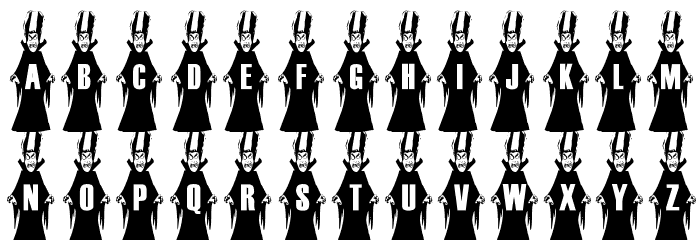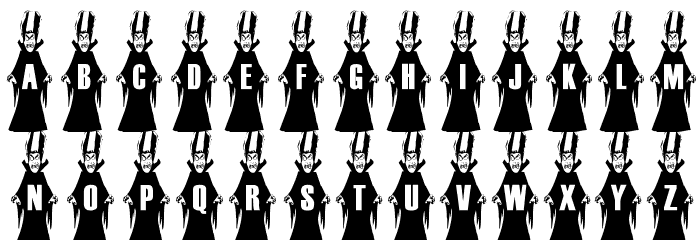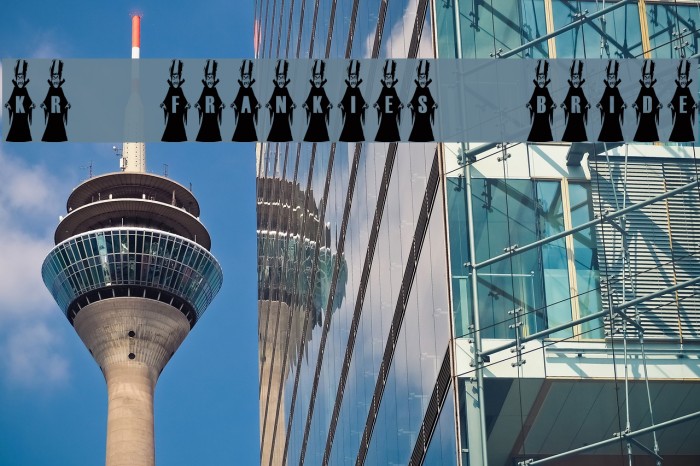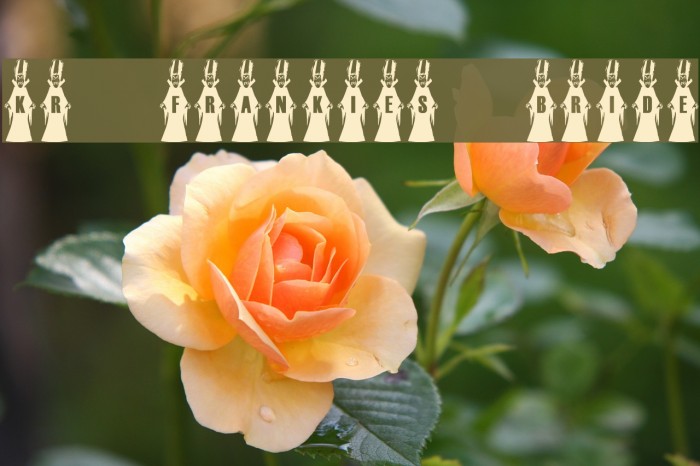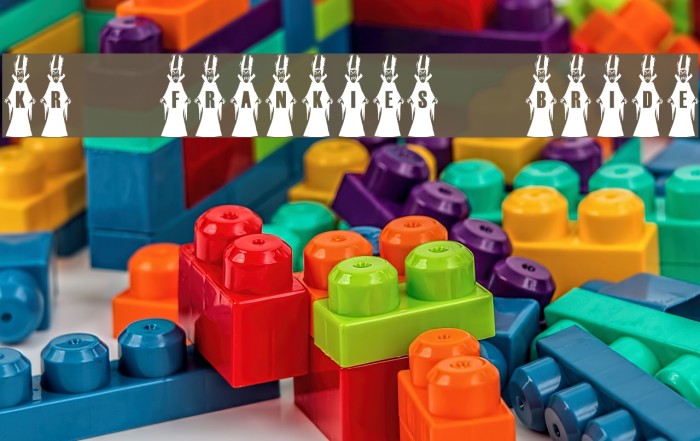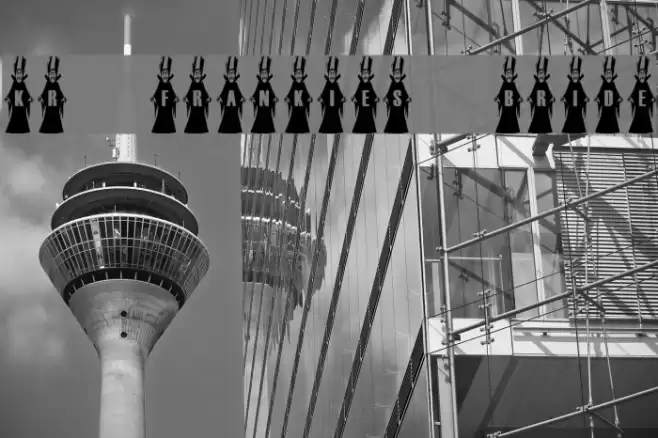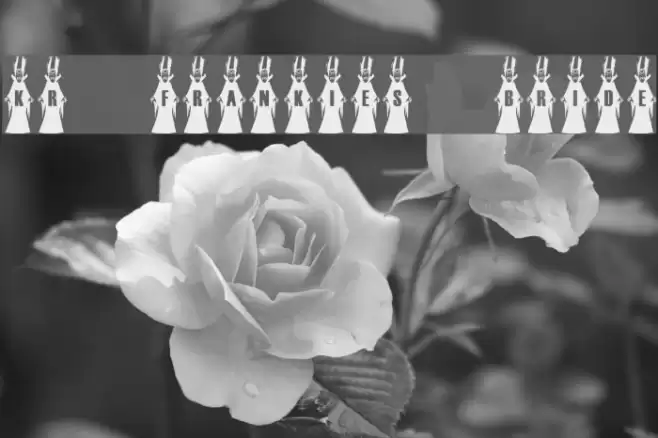
KR Frankie's Bride Font
This font features a unique and playful design with each character embedded within a stylized figure resembling a classic horror character. The letters are bold and uppercase, with a consistent width and height, creating a uniform appearance. The figures add a decorative and thematic element, making it ideal for Halloween or horror-themed projects. The font's distinct style captures attention and adds a whimsical yet eerie touch to any design.
A playful, horror-themed decorative font with characters embedded in stylized figures.
- Proposed Projects: Ideal for Halloween invitations, horror movie posters, themed party decorations, and spooky merchandise designs.